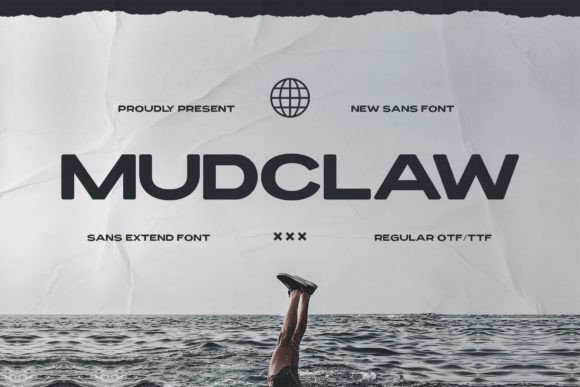
Introducing Mudclaw Font, the ultimate typography masterpiece that will ignite your creativity and leave a lasting impression on your audience. This exceptional sans-serif font, meticulously crafted by TypeFactory, boasts an extended character set that empowers you to express your ideas with unparalleled style and elegance.
Mudclaw's meticulously designed letters dance gracefully on the page, creating a visual symphony that captivates and inspires. Its versatility knows no bounds, seamlessly adapting to both formal and casual designs, making it the perfect choice for a wide range of projects. Whether you're crafting eye-catching headlines, designing sophisticated logos, adorning book jackets, or creating visually stunning posters, Mudclaw Font will elevate your work to new heights.
Immerse yourself in a realm of boundless creativity as you explore the endless possibilities of Mudclaw Font. Its sleek lines and sharp angles lend a futuristic touch to any design, evoking a sense of innovation and modernity. Unleash your imagination and let Mudclaw Font guide you towards typographic excellence.